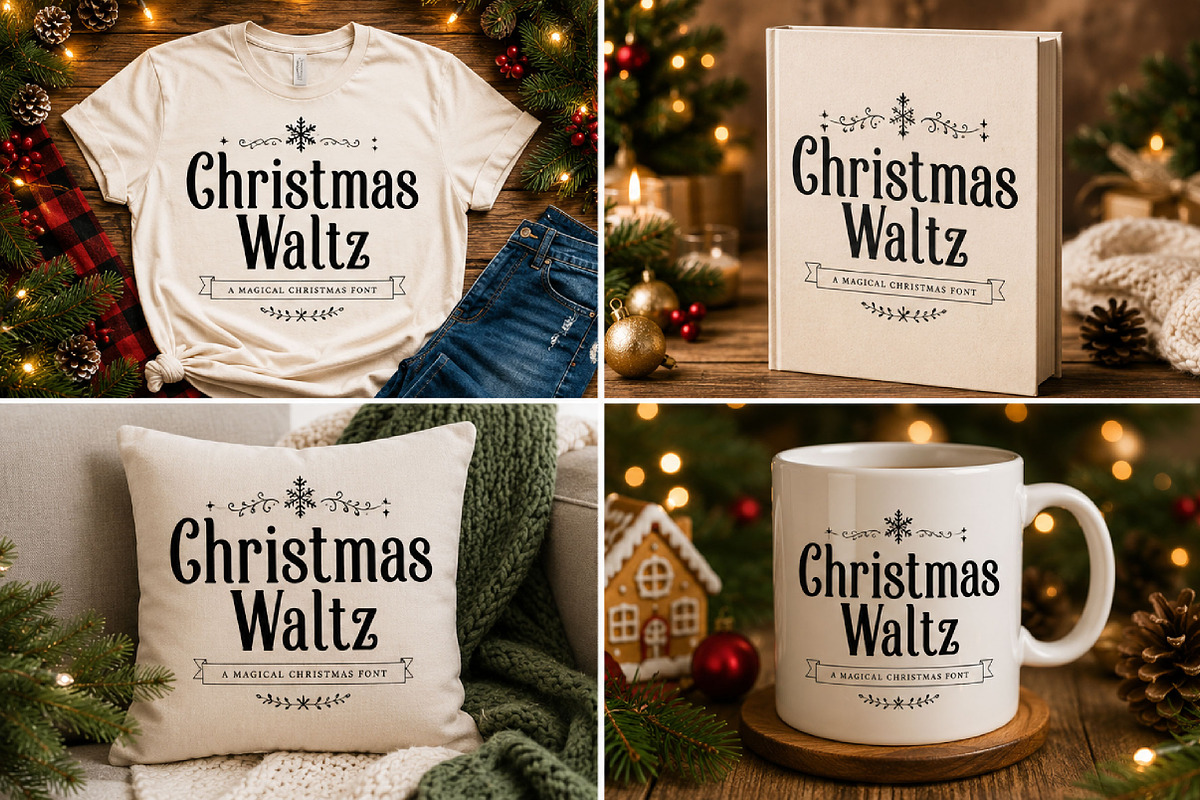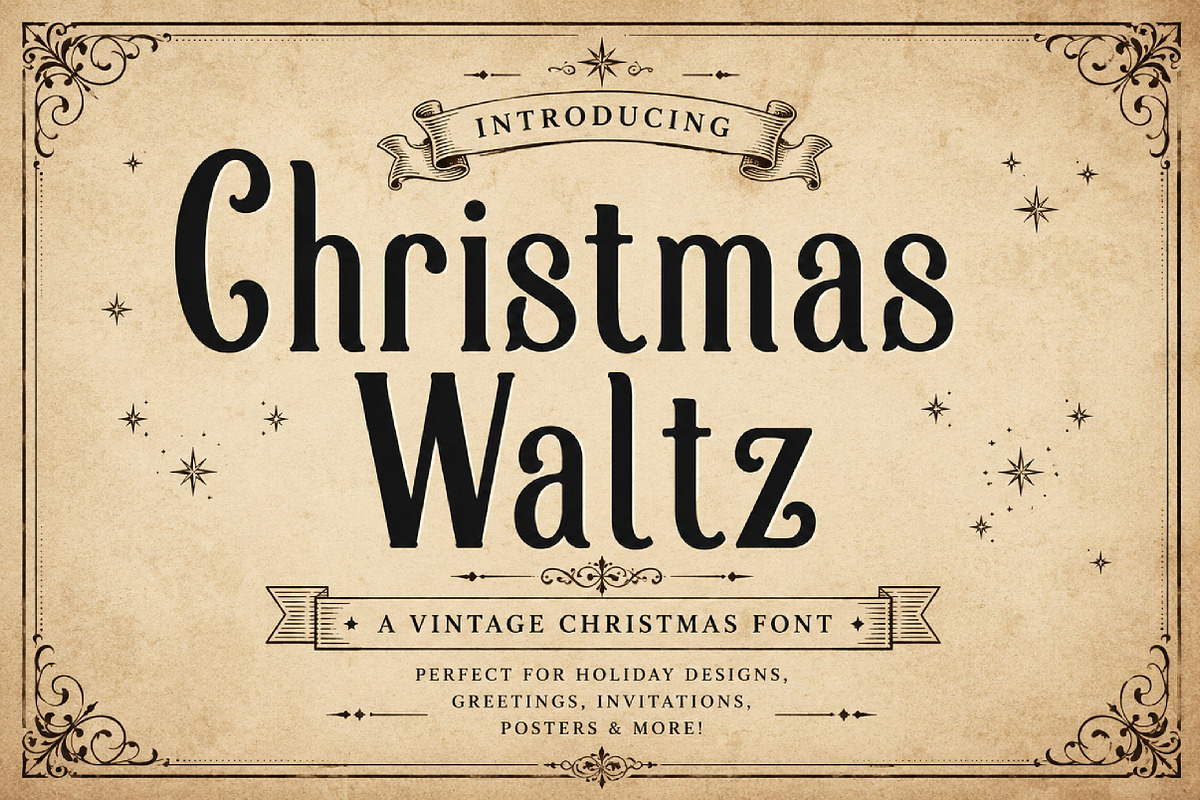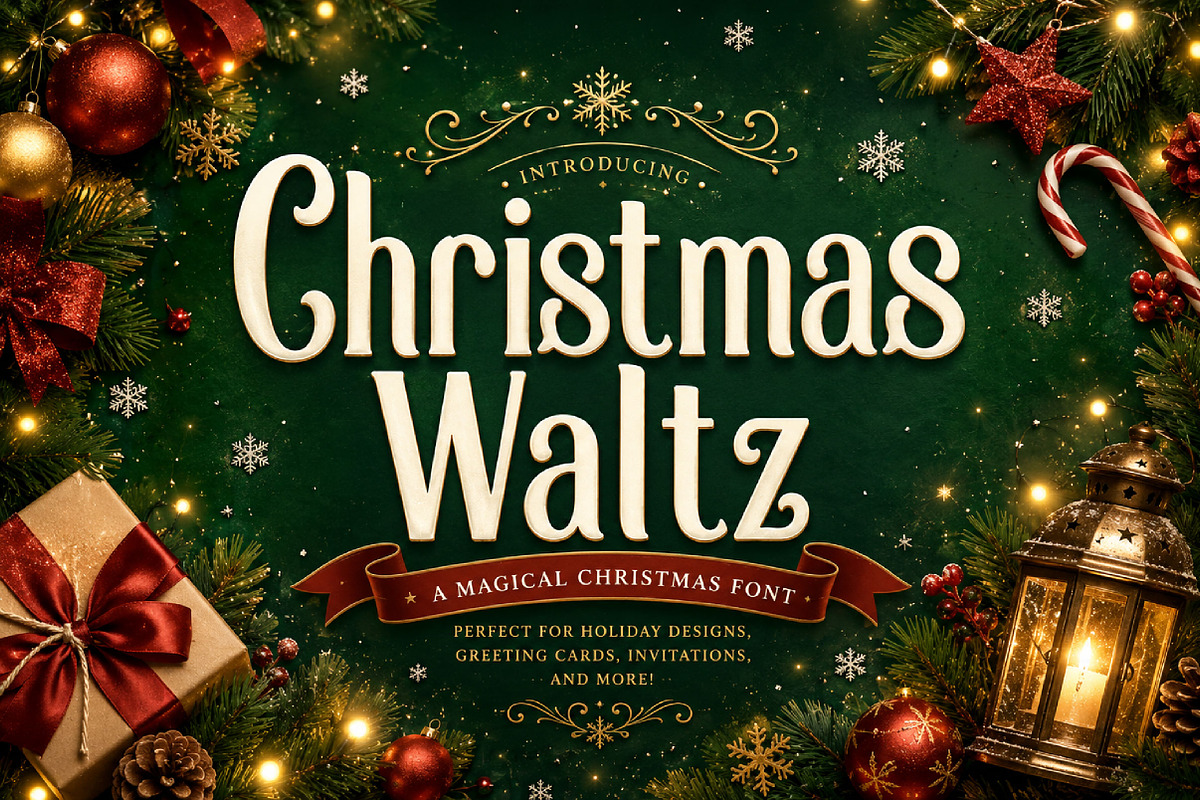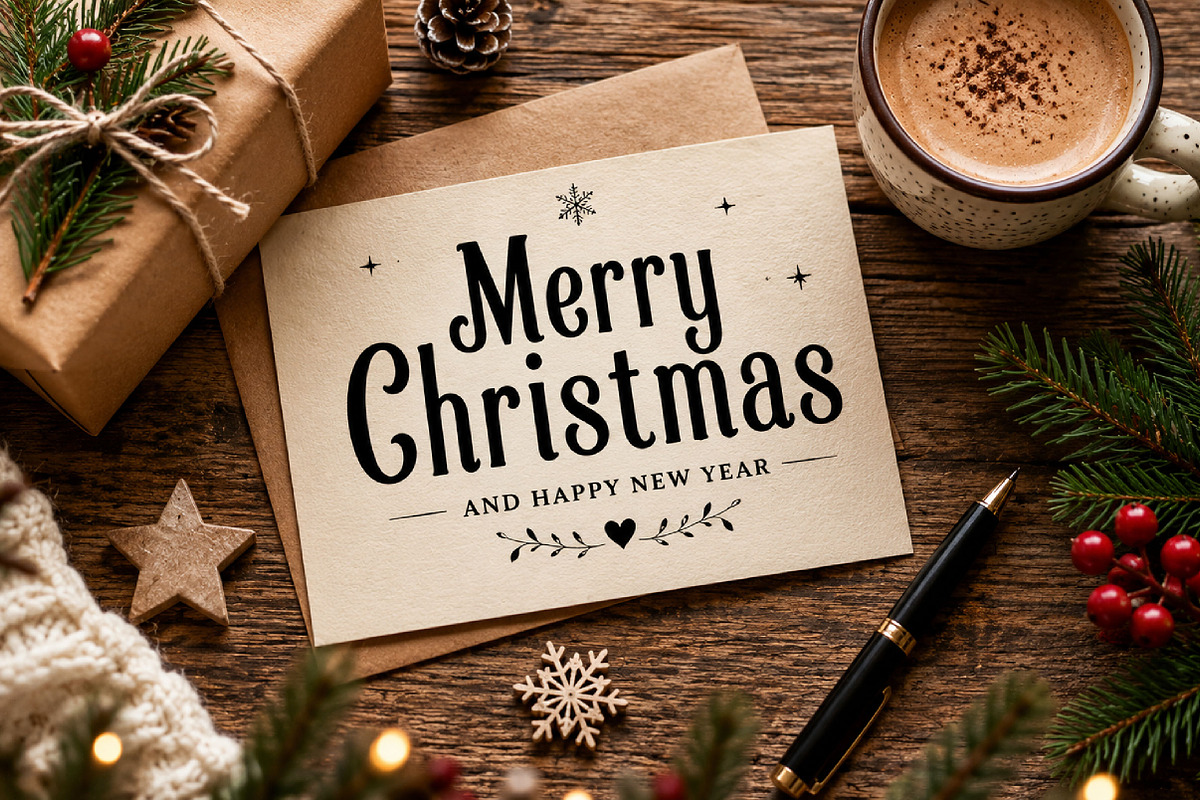
Christmas Waltz
Christmas Waltz – Elegant Holiday Display Font
Christmas Waltz is an elegant, festive, and decorative display font, perfect for Christmas designs, holiday cards, invitations, packaging, logos, and seasonal branding.
Christmas Waltz is a graceful holiday display font designed with tall, elegant letterforms and decorative curves. Its festive personality brings a warm, classic, and charming look to Christmas-themed designs.
Perfect for greeting cards, invitations, holiday packaging, posters, gift tags, logos, and seasonal branding, Christmas Waltz adds a refined decorative touch to every project. The font’s stylish shapes make it ideal for designs that need a cozy, festive, and memorable appearance.
Whether used for print or digital projects, Christmas Waltz works beautifully in headlines, labels, social media graphics, merchandise, and holiday promotions. Its elegant character helps your typography feel joyful, polished, and full of seasonal charm.
Christmas cards
Holiday invitations
Gift tags and labels
Seasonal packaging
Posters and headlines
Logos and branding
Holiday merchandise
Winter event graphics
Festive display typography
Elegant holiday style
Decorative curved letterforms
Festive and classic appearance
Perfect for display use